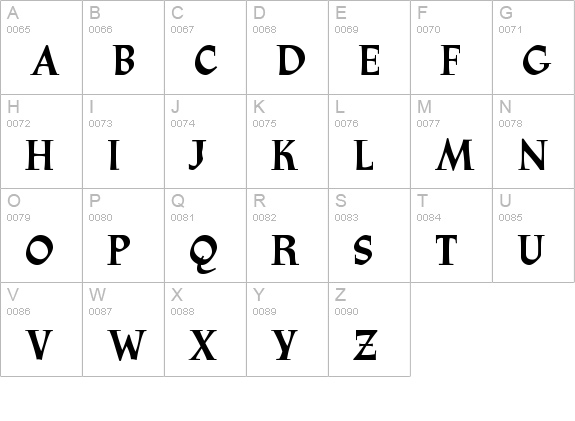
Athenaeum Std Bold is a strong, high-contrast variant in the Athenaeum typeface family \xE2\x80\x94 well suited to headlines, attention-grabbing titles, and strong calls-to-action.
Athenaeum Std Bold is a versatile and modern typeface that exudes confidence and sophistication. With its bold and striking design, this font is perfect for making a statement in any project. Whether you are creating a logo, poster, or website, Athenaeum Std Bold will help your text stand out and grab attention. What makes Athenaeum Std Bold even more appealing is that it is available for free download at FontsMarket.com. This means you can easily access this premium font without any cost, making it a valuable addition to your font library. Don't miss out on the opportunity to enhance your designs with the elegance and impact of Athenaeum Std Bold. Download it today and elevate your typographic creations to the next level.